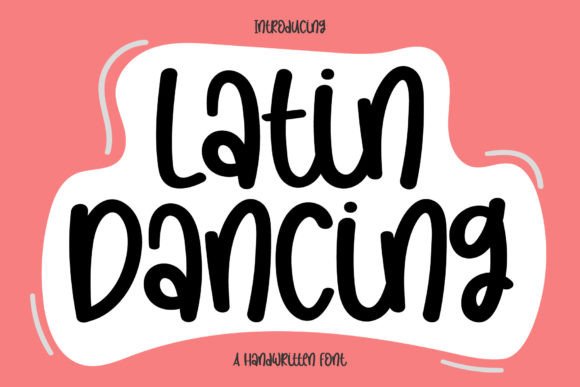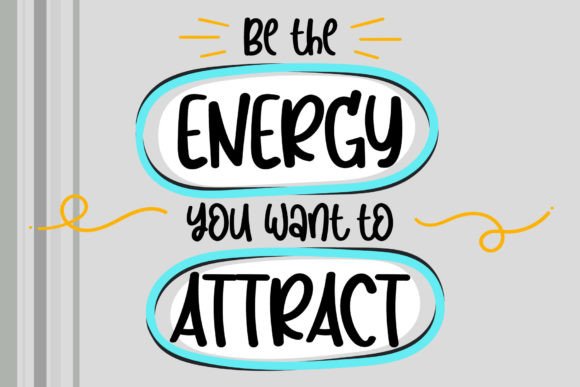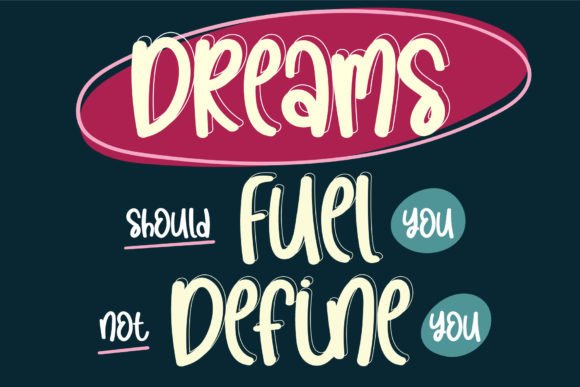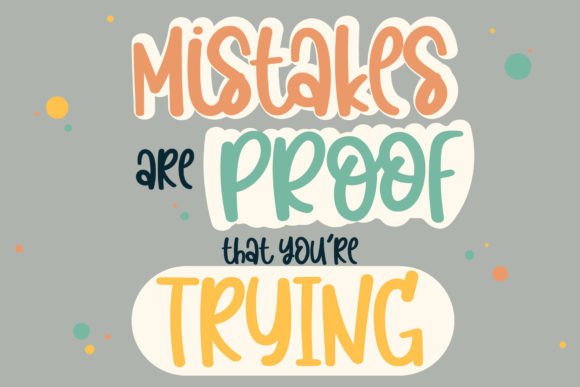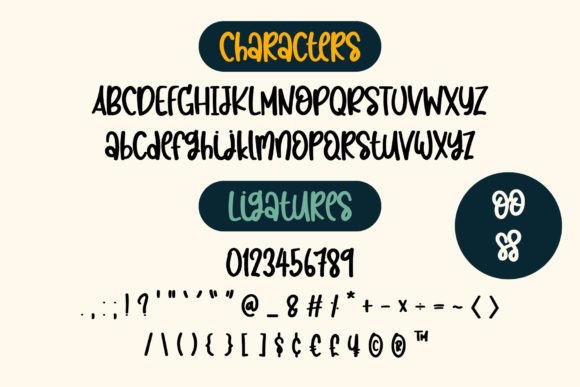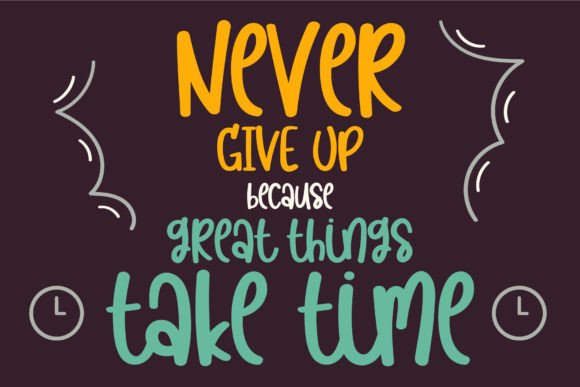
Latin Dancing Font
Introducing Latin Dancing, a simple and joyful handwritten font designed to bring a touch of casual charm to your creative projects. With its down-to-earth appearance and readability, Latin Dancing is a versatile choice that stands out whether used on busy backgrounds or as a standalone headline.
The simplicity and joyfulness of Latin Dancing make it suitable for a variety of contexts. Imagine it being used in logos, branding, or headlines, where its casual charm adds a welcoming and approachable feel. Picture Latin Dancing on invitations, greeting cards, or any design that requires a personalized touch, where it effortlessly conveys a sense of warmth.
The versatility of Latin Dancing allows it to shine in different applications, making it an excellent choice for a wide range of design projects. Whether you’re working on digital designs, print media, or any other creative endeavor, Latin Dancing adds a touch of simplicity and joy to the overall aesthetic.
In conclusion, Latin Dancing is not just a font; it’s a simple and joyful design asset that enhances your creative projects. Download it today and experience how it elevates your logos, branding, headlines, and various design endeavors. Make Latin Dancing a cherished addition to your font collection and let it be the key to unlocking a world of casual charm in your designs!